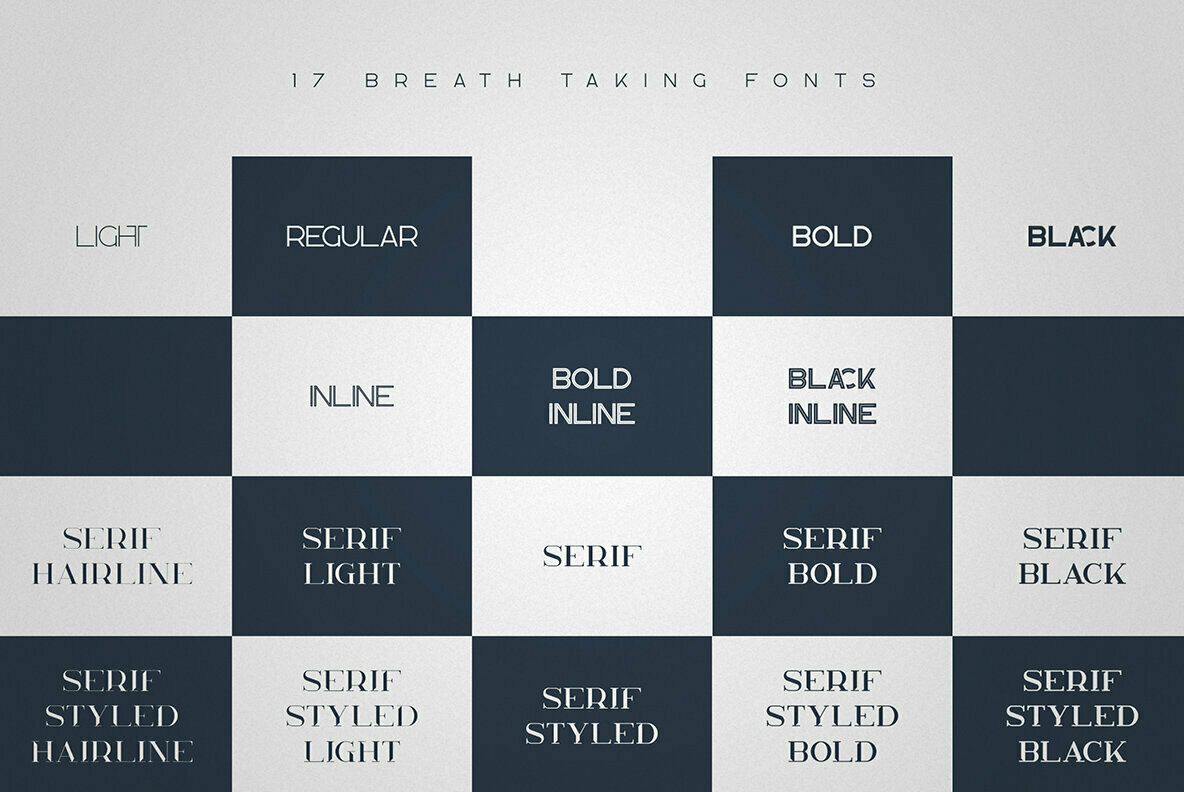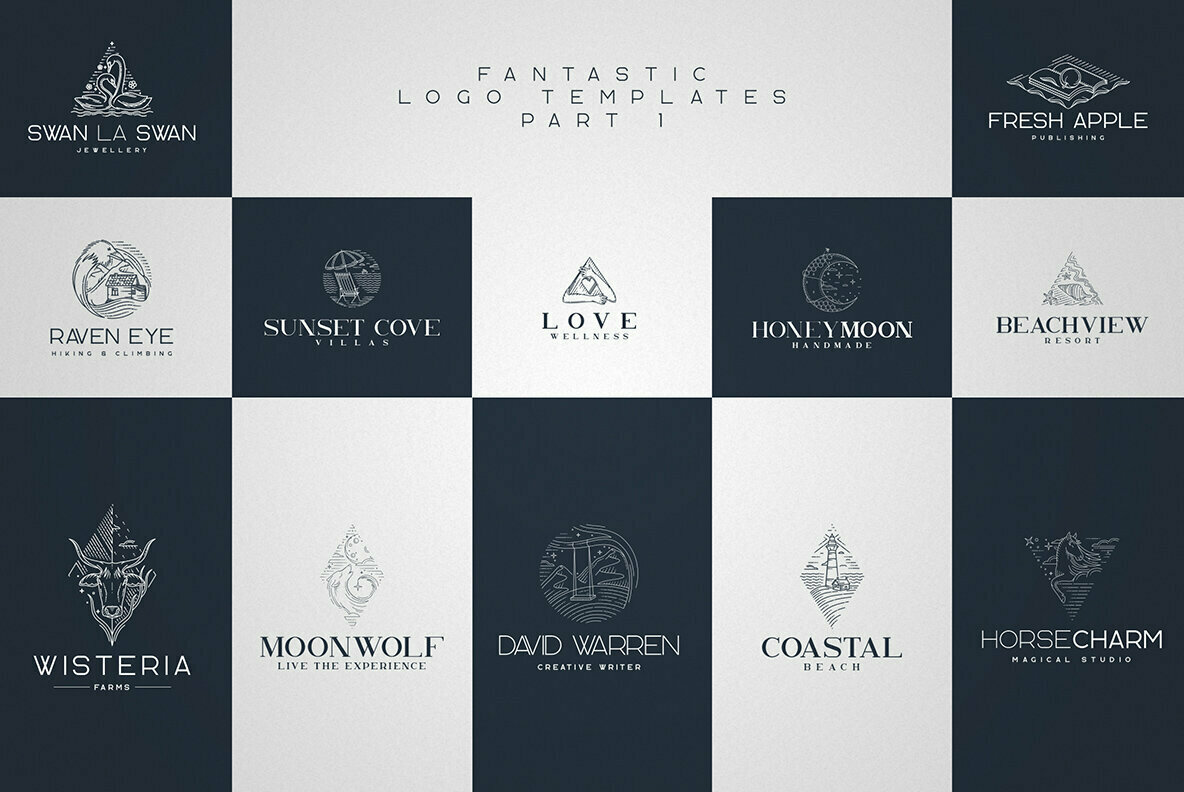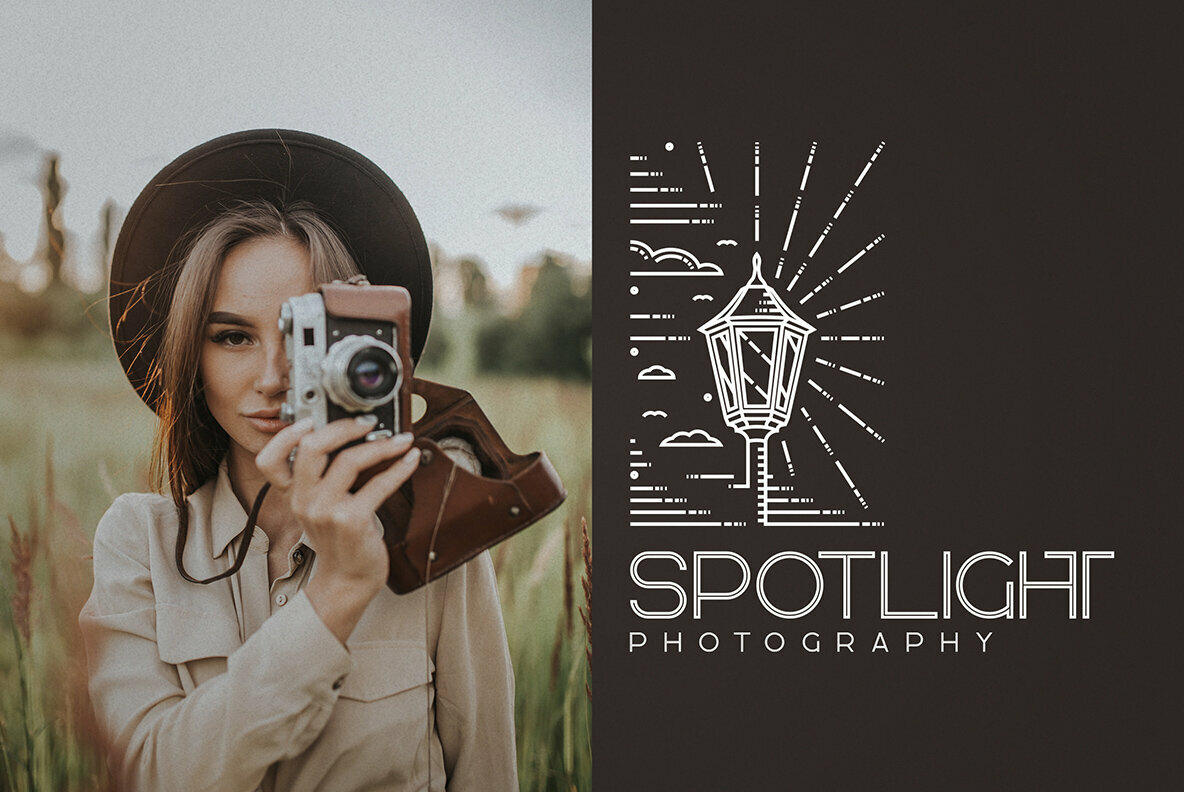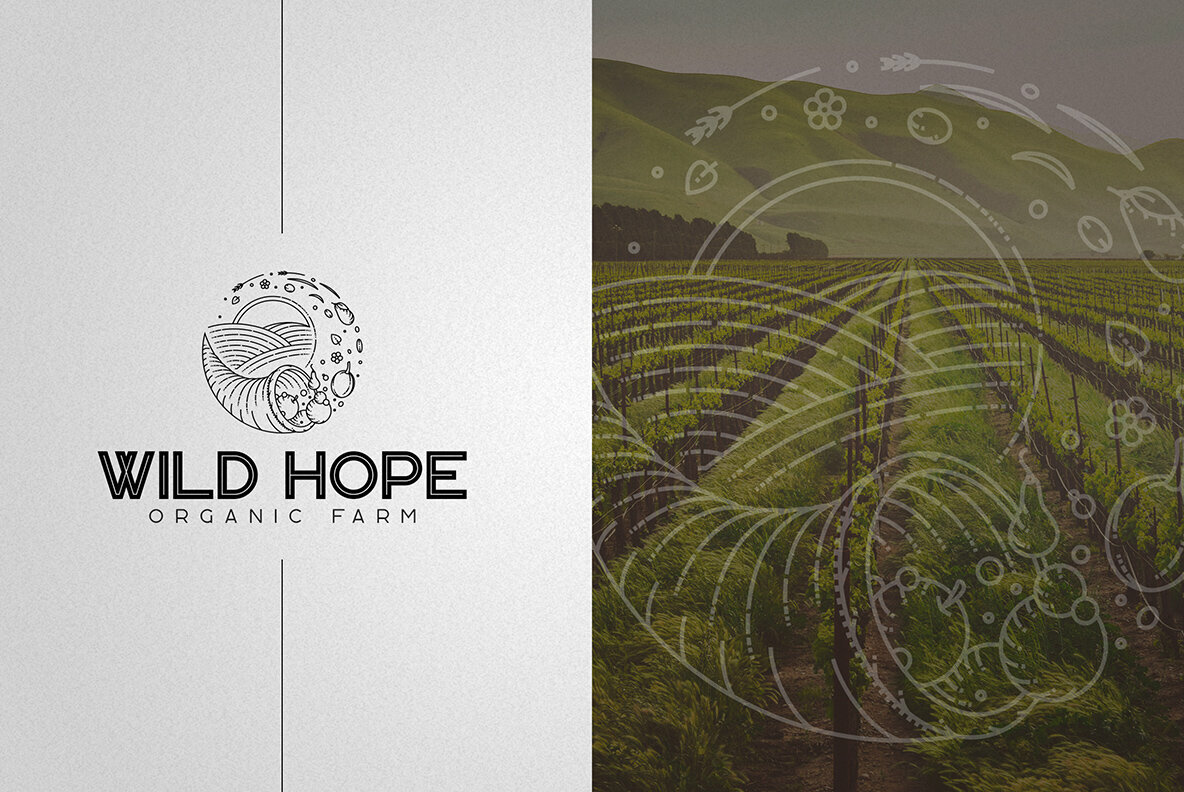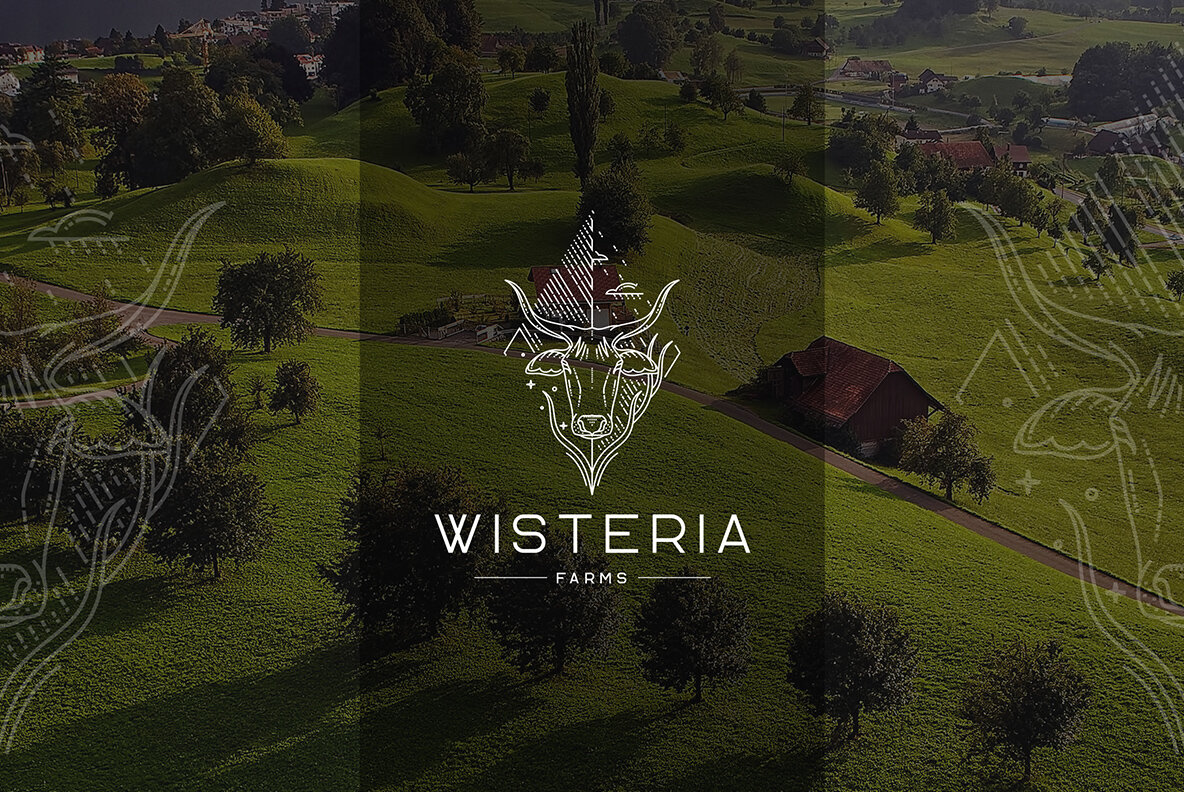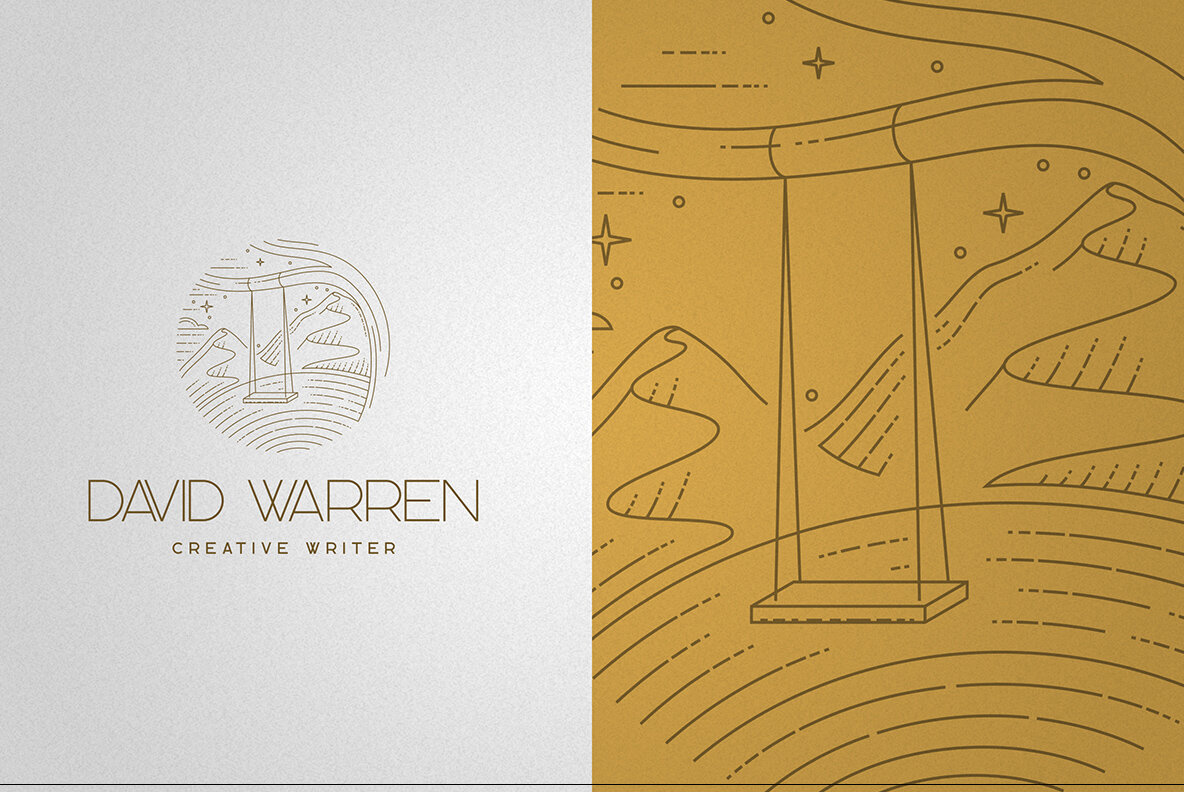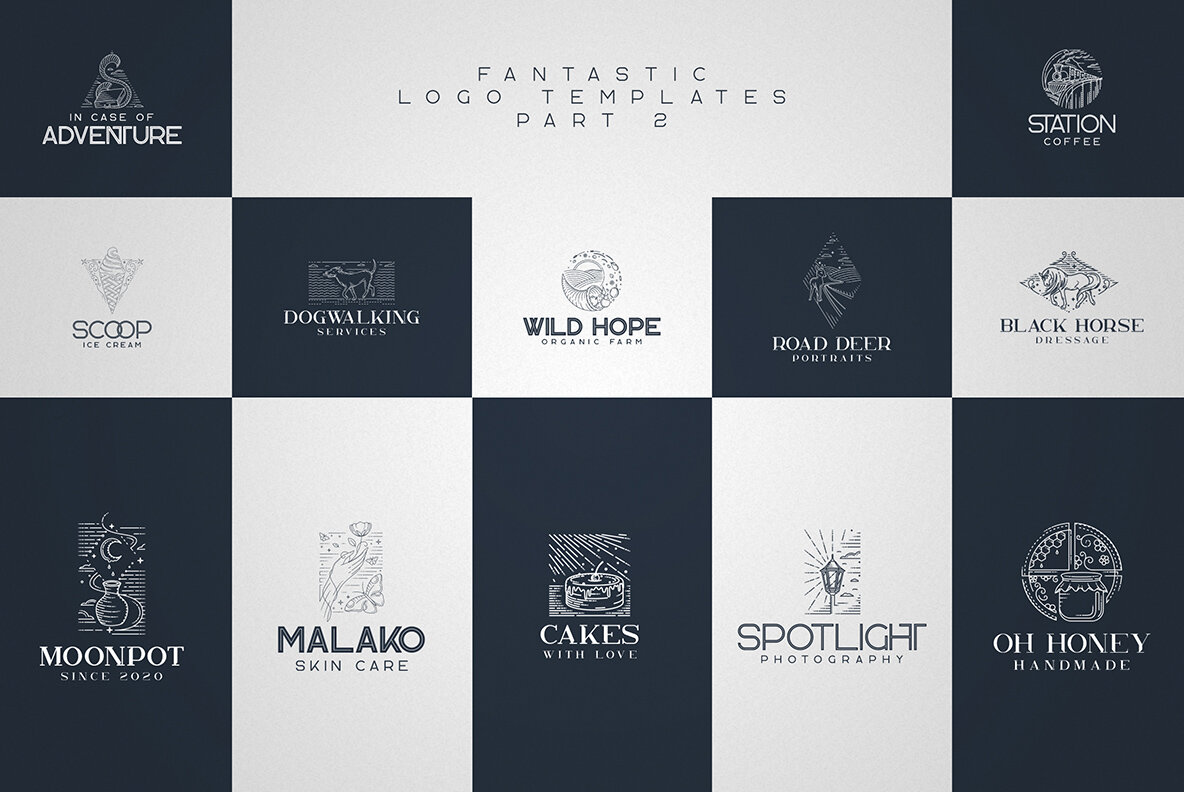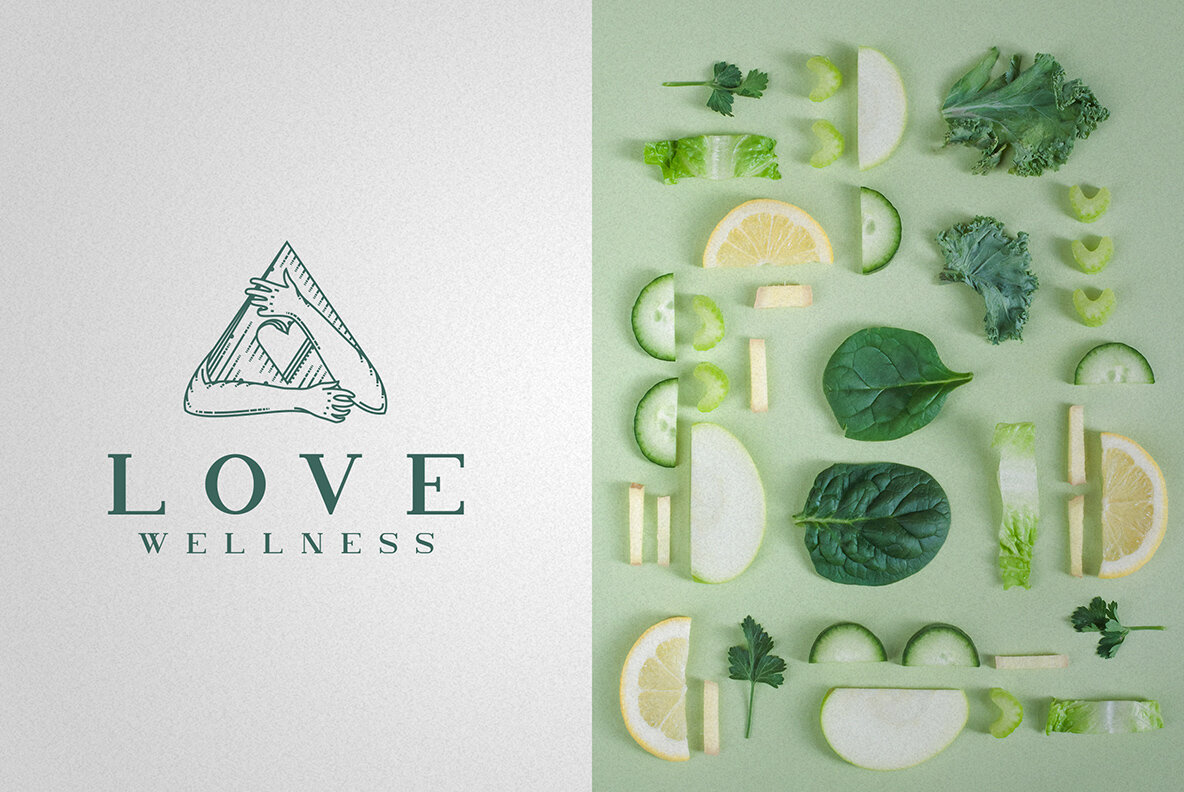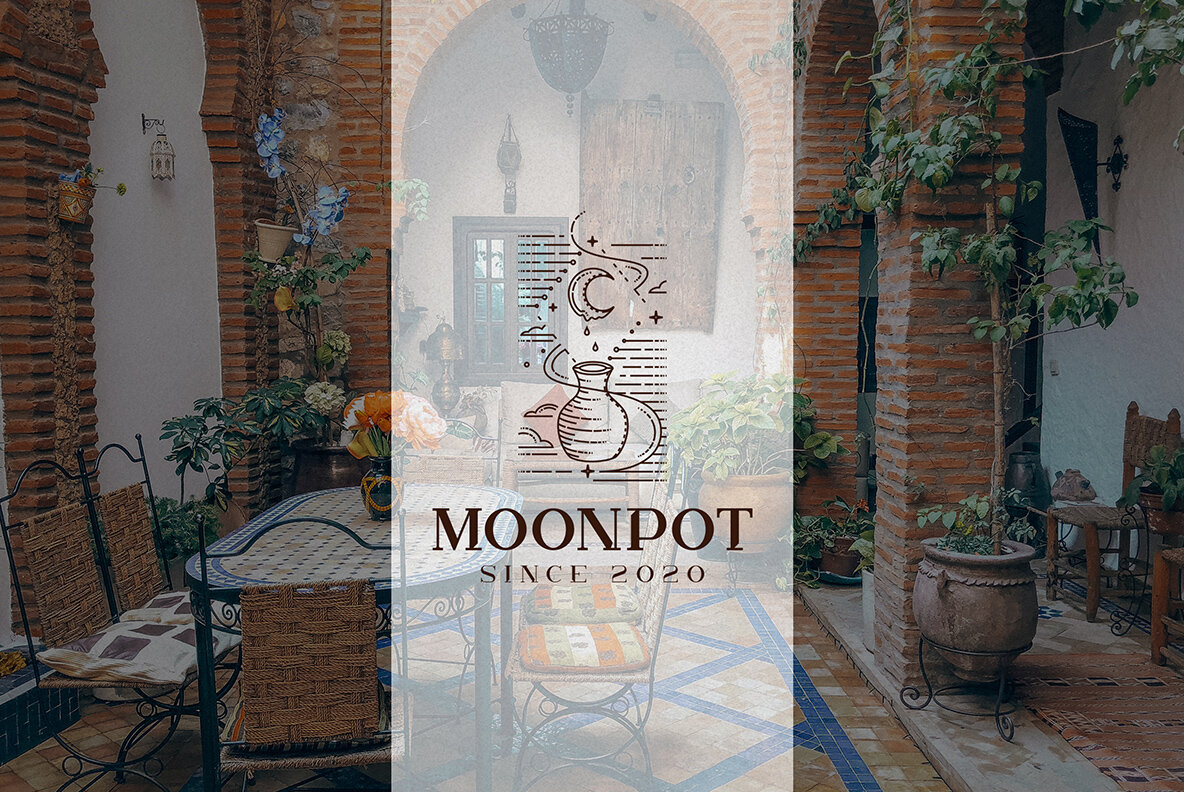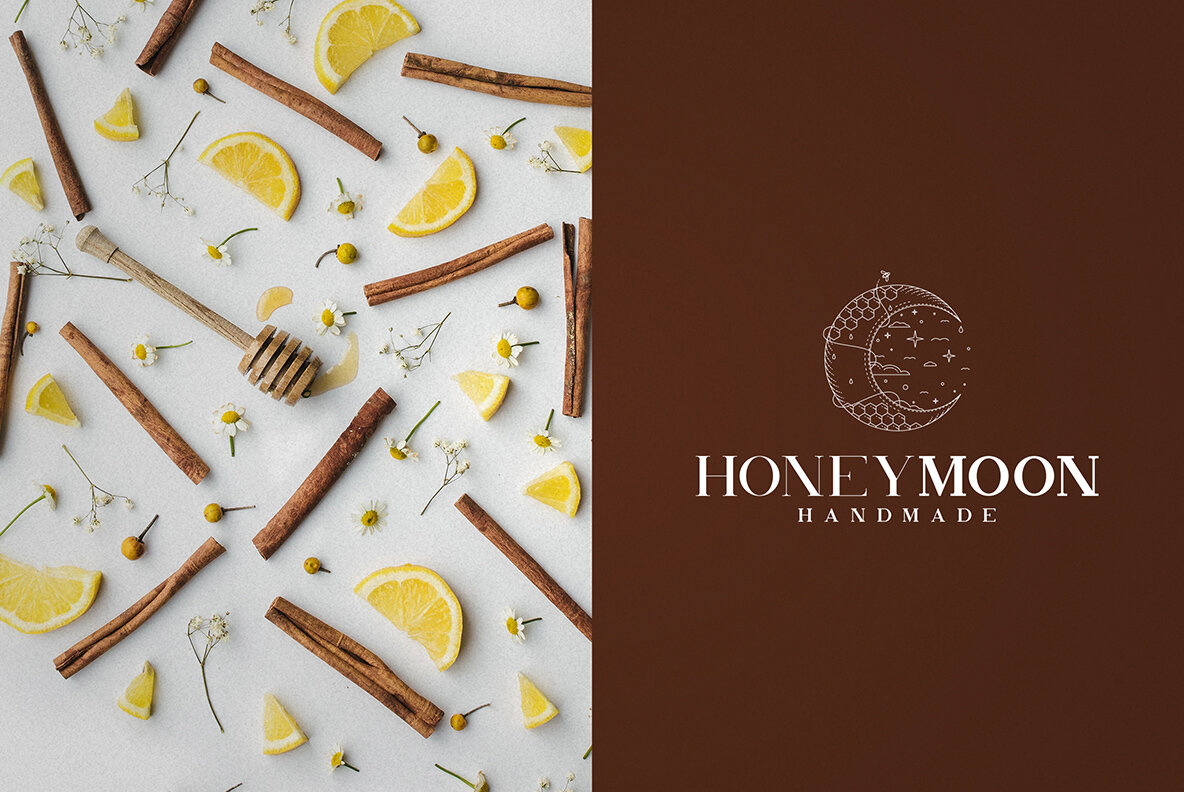
Kavo Family Font
Kavo Family and Logo Templates (17 fonts)
Kavo Serif Hairline
Kavo Serif Light
Kavo Serif
Kavo Serif Bold
Kavo Serif Black
Kavo Serif Hairline Styled
Kavo Serif Light Styled
Kavo Serif Styled
Kavo Serif Bold Styled
Kavo Serif Black Styled
Kavo Light
Kavo Regular
Kavo Bold
Kavo Black
Kavo Inline
Kavo Bold Inline
Kavo Black Inline
Kavo Family stands as a consummate choice for discerning designers. This contemporary collection includes 17 fonts and an array of 24 logo templates, making it an exceptional addition to any design project. Its clean and modern build shines in branding, homeware, product packaging, and magazine headers. With a design that supports both large and small display sizes, Kavo effortlessly enhances the aesthetics of any image backdrop.Kavo Family: A Versatile Typeface for Modern Design